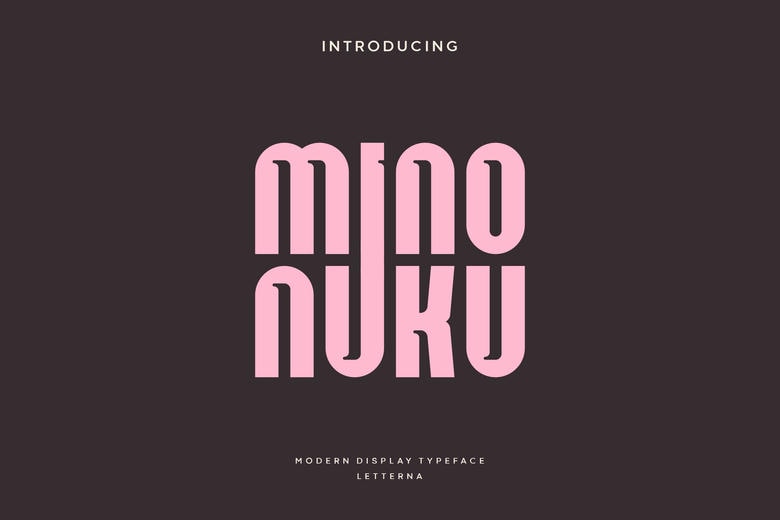
Minonuku Font
Minonuku is a bold condensed rounded display font. This font is a sophisticated shape with distinctive shapes into a display fonts way to make it legible for contemporary use. Minonuku is a beautiful choice for any creative endeavor, retro or vintage design, lifestyle design such as logos, title, cover, branding, display, business card, magazine, poster, film/movie and more.
Minonuku Display Font